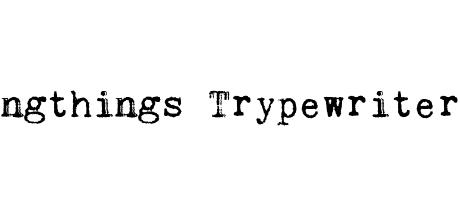
Kingthings Trypewriter
Kingthings Trypewriter 2: A bold, vintage-inspired typeface echoing the charm of classic typewriters. Its slightly uneven, monospaced characters possess a rugged, hand-struck quality, suggesting a sense of authenticity and aged history. The letters are straightforward and easy to read, retaining the clean, simple elegance of a bygone era of writing.